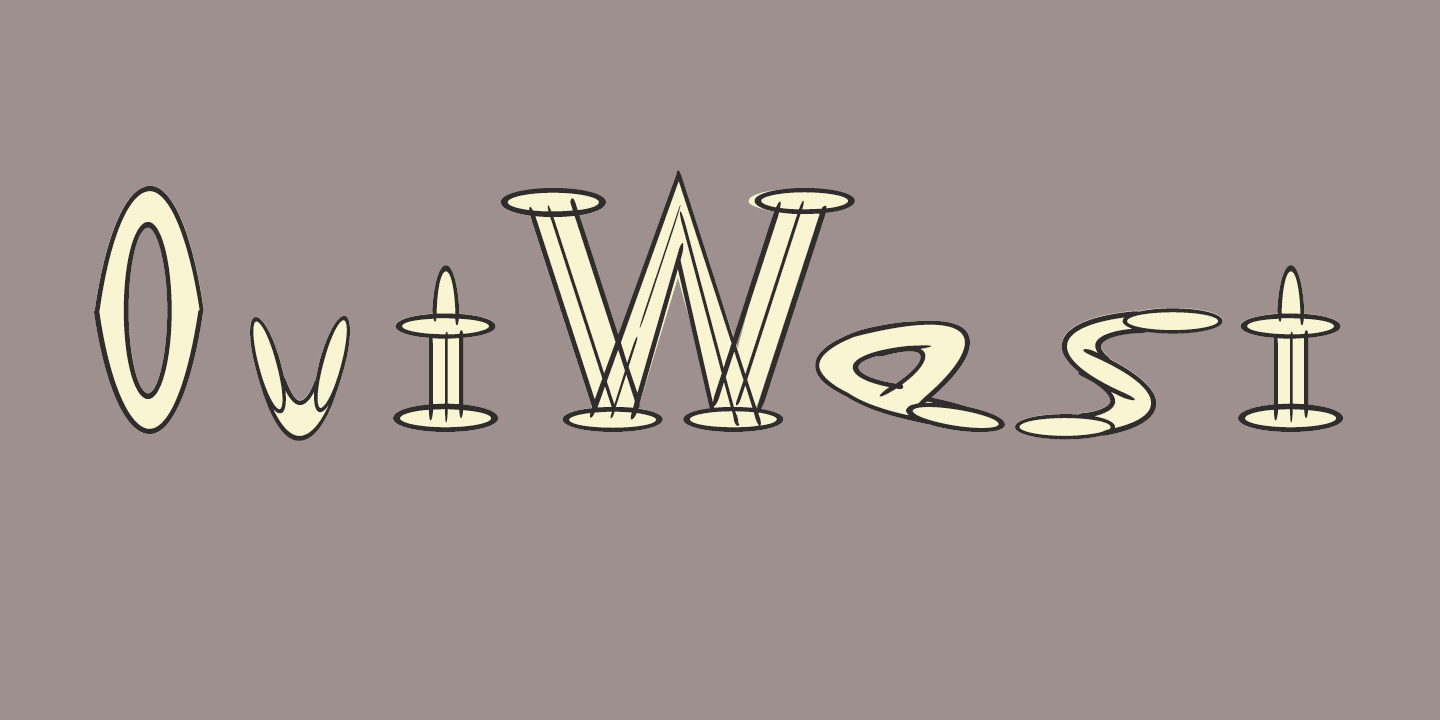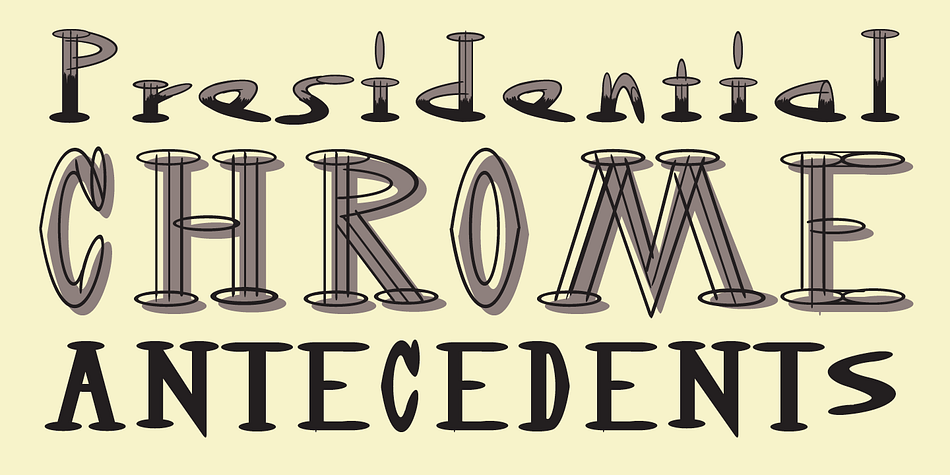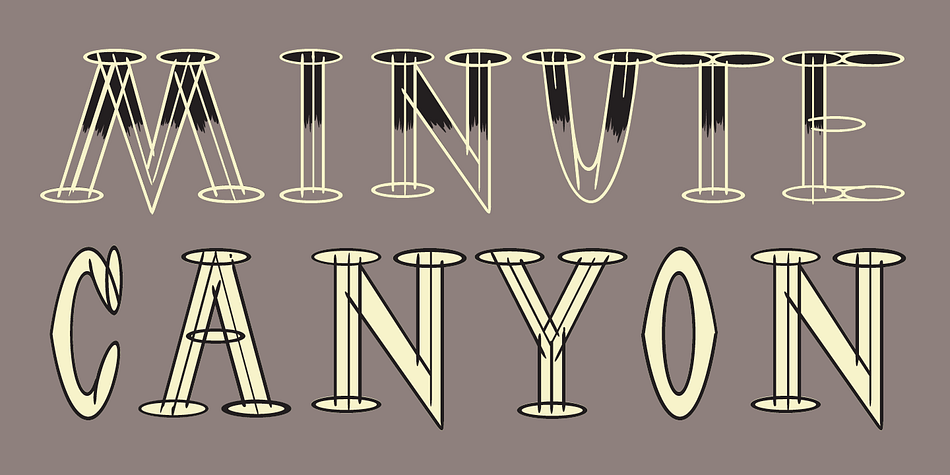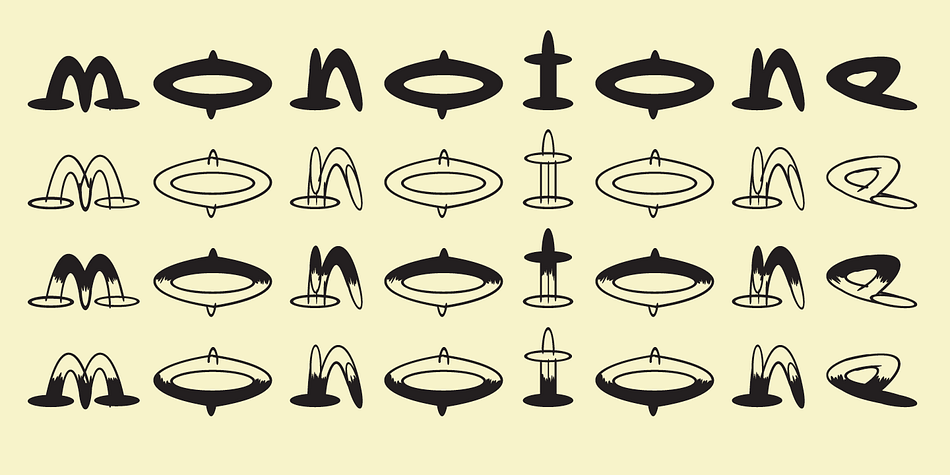
Designed by Edward Fella, Outwest is a novelty font family. This typeface has four styles and was published by Emigre.
OutWest was commissioned by art director, Laurie Haycock Makela for use in the Walker Art Center’s publication Design Quarterly.
Edward Fella originally drew OutWest by hand using the fifteen degree ellipse on an architectural template. The full name given to this design, “Out West on a Fifteen Degree Ellipse,” evokes the rational yet organic, as well as Western qualities.